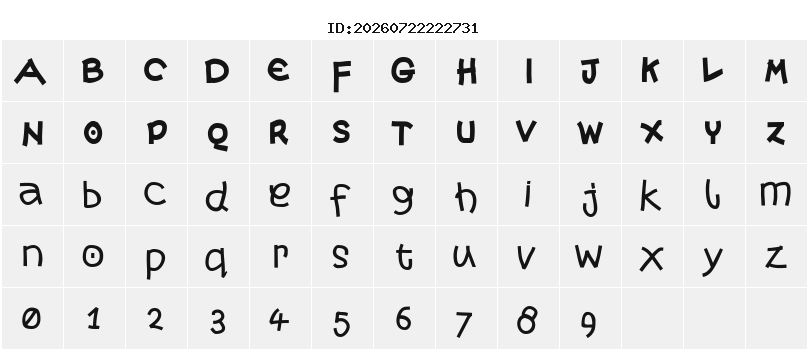
• Font Name: MoreMonK
• Font ID: MoreMonK
• Full Font Name: MoreMonK
• PostScript Name: MoreMonK
About MoreMonK.ttf
MoreMonK.ttf is a modern, elegant sans-serif font designed for ultimate readability and visual harmony. Perfect for branding, headlines, web design, and print materials.